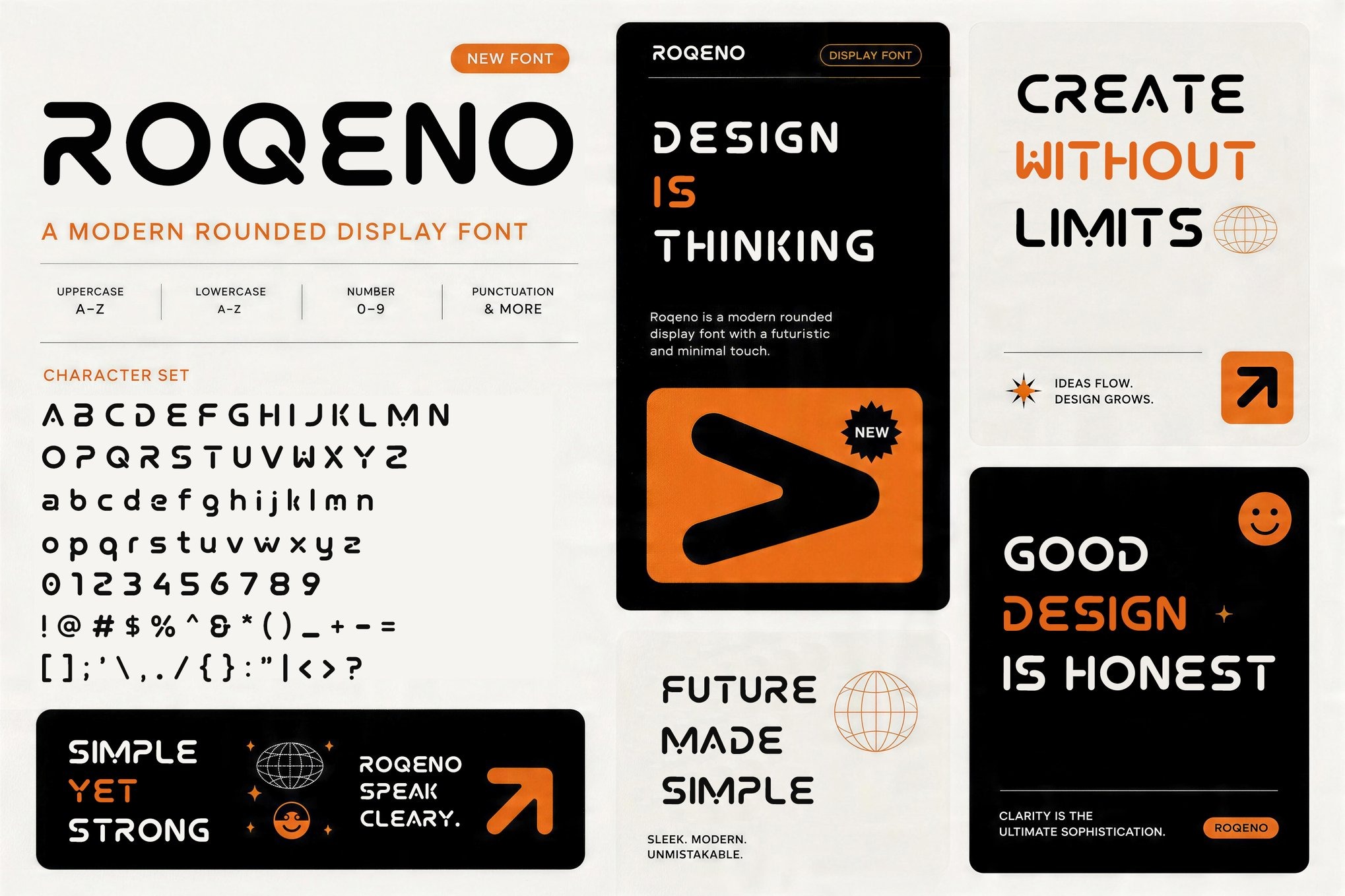
Roqeno – Modern Rounded Font
Roqeno – Modern Rounded Font is a premium-quality font developed to enhance your work with a polished, modern, and visually elevated look. Roqeno, a modern rounded display font crafted for bold, clean, and forward-thinking designs. Featuring smooth curves, geometric construction, and futuristic letterforms, Roqeno delivers a unique visual identity that feels both minimal and innovative.
Its rounded shapes create a friendly yet professional appearance, making it ideal for technology brands, startups, digital products, UI design, branding, packaging, posters, and modern editorial layouts. Designed for maximum impact, Roqeno combines contemporary aesthetics with excellent readability to help your headlines and logos stand out.
Whether you’re designing for the tech industry, futuristic branding, gaming, social media, or creative marketing campaigns, Roqeno brings a sleek and modern personality to every project.
Perfect For
Branding & Identity
Logo Design
Posters
Headlines
Editorial Design
Social Media Graphics